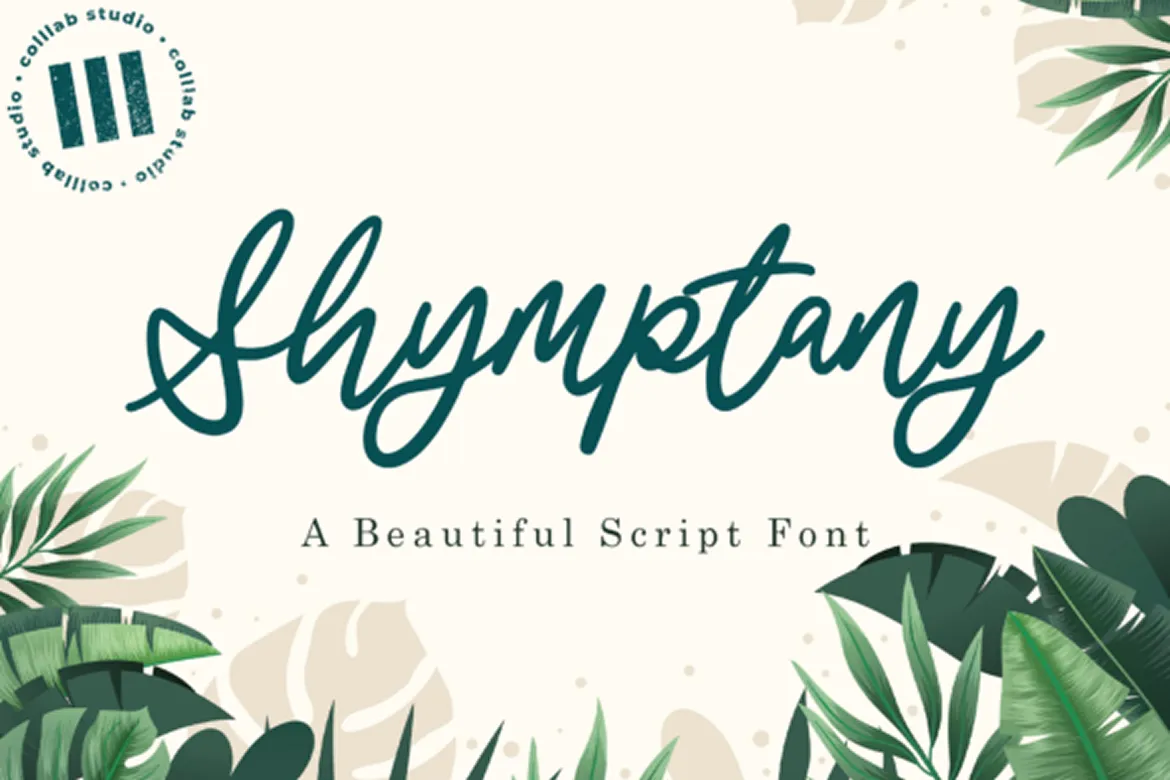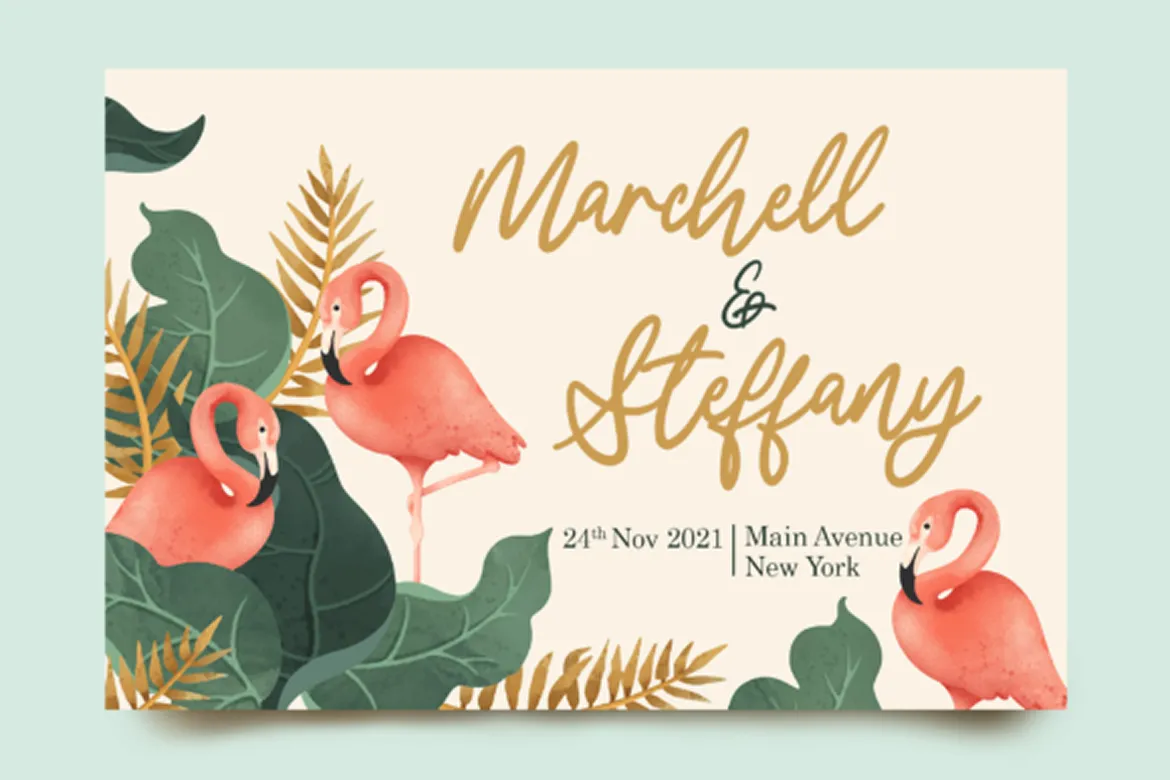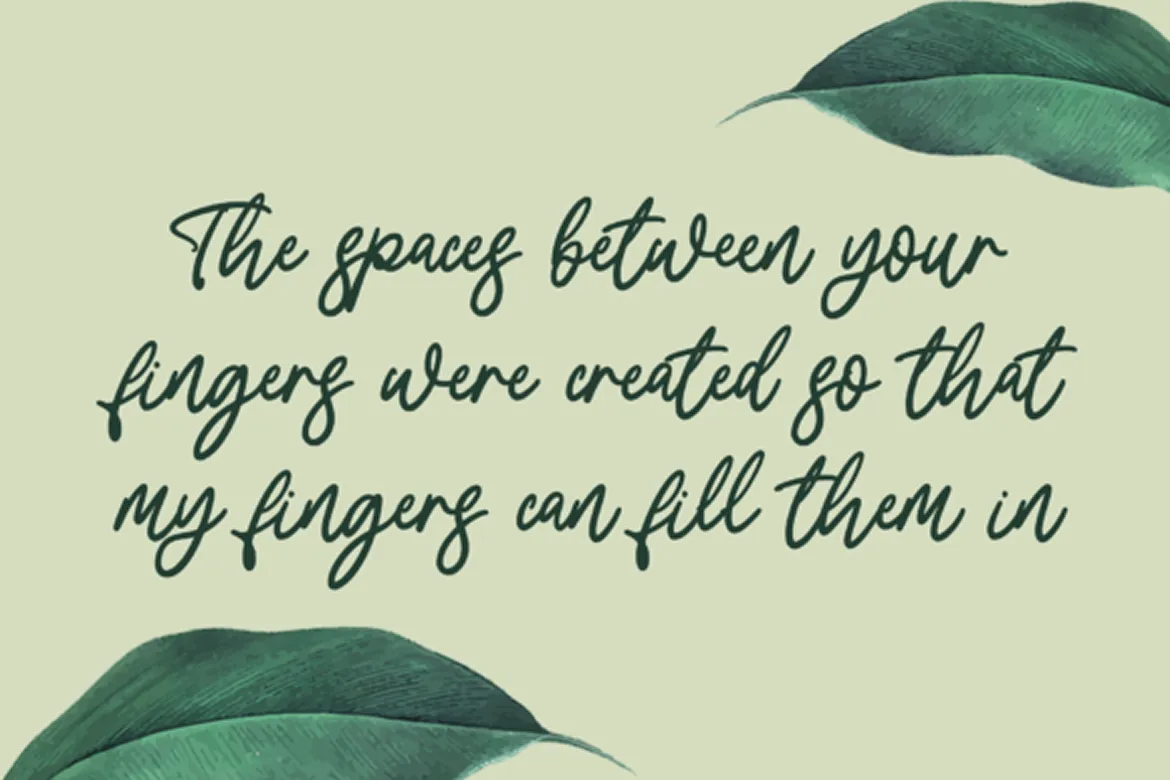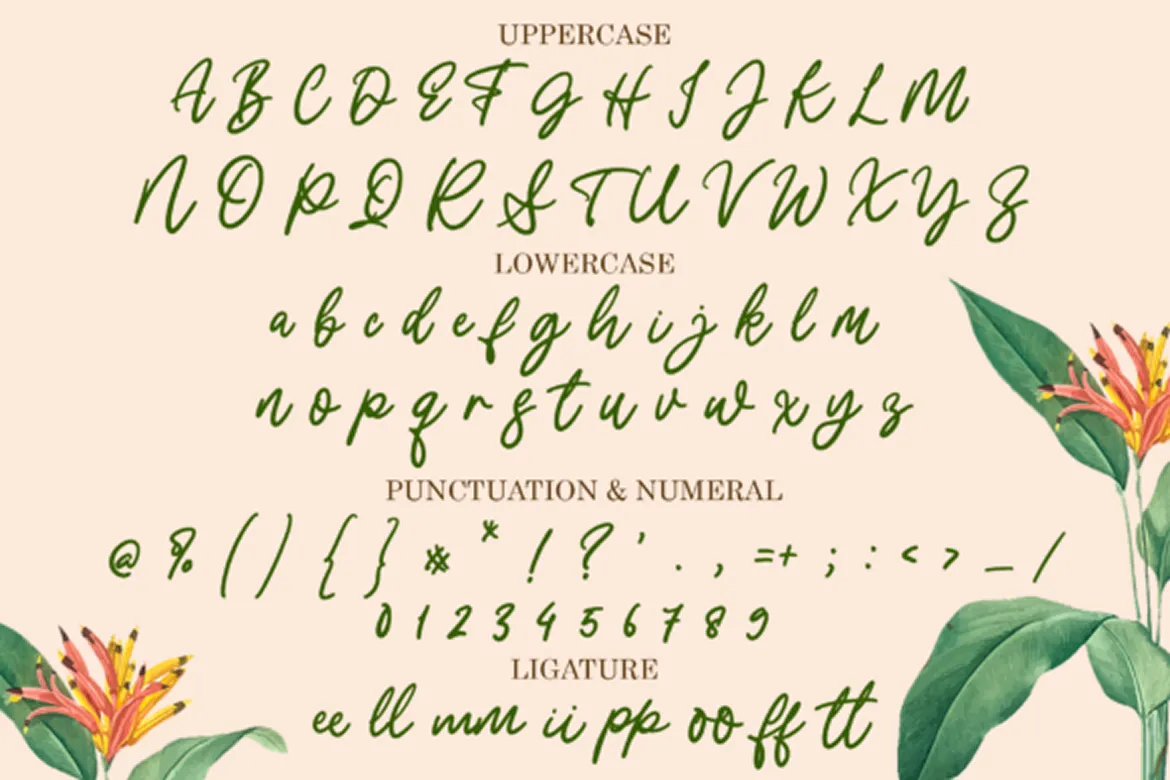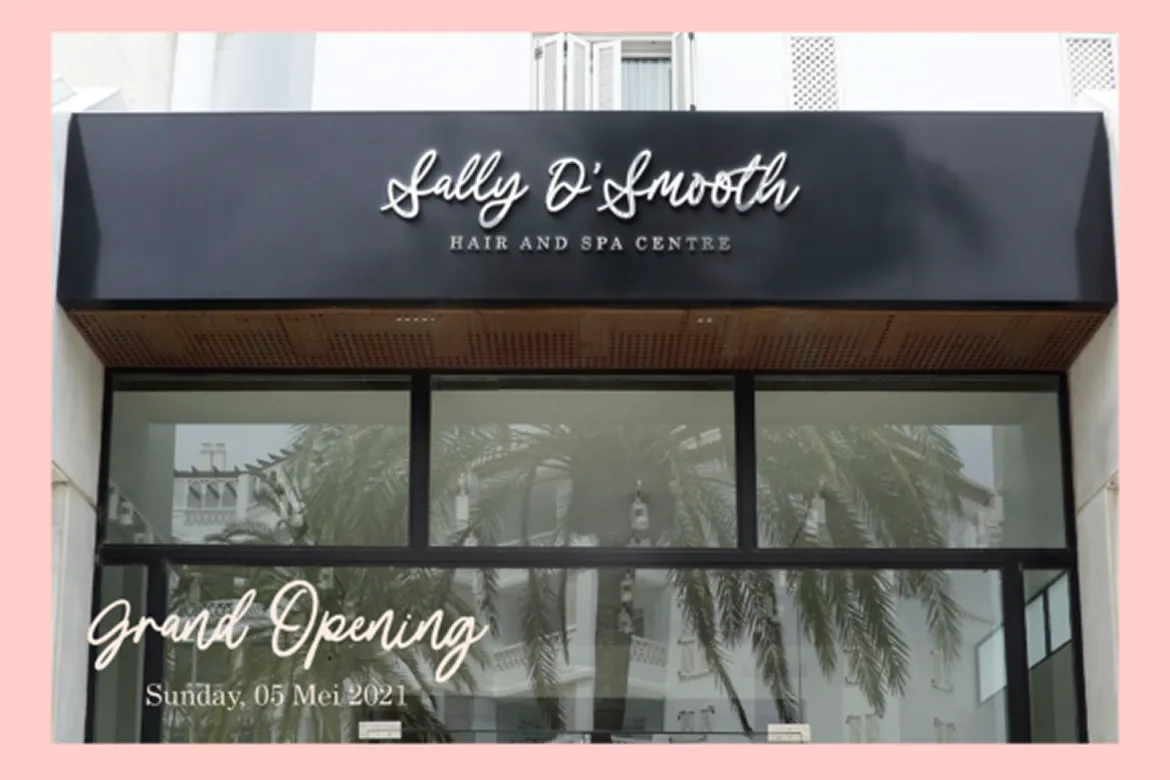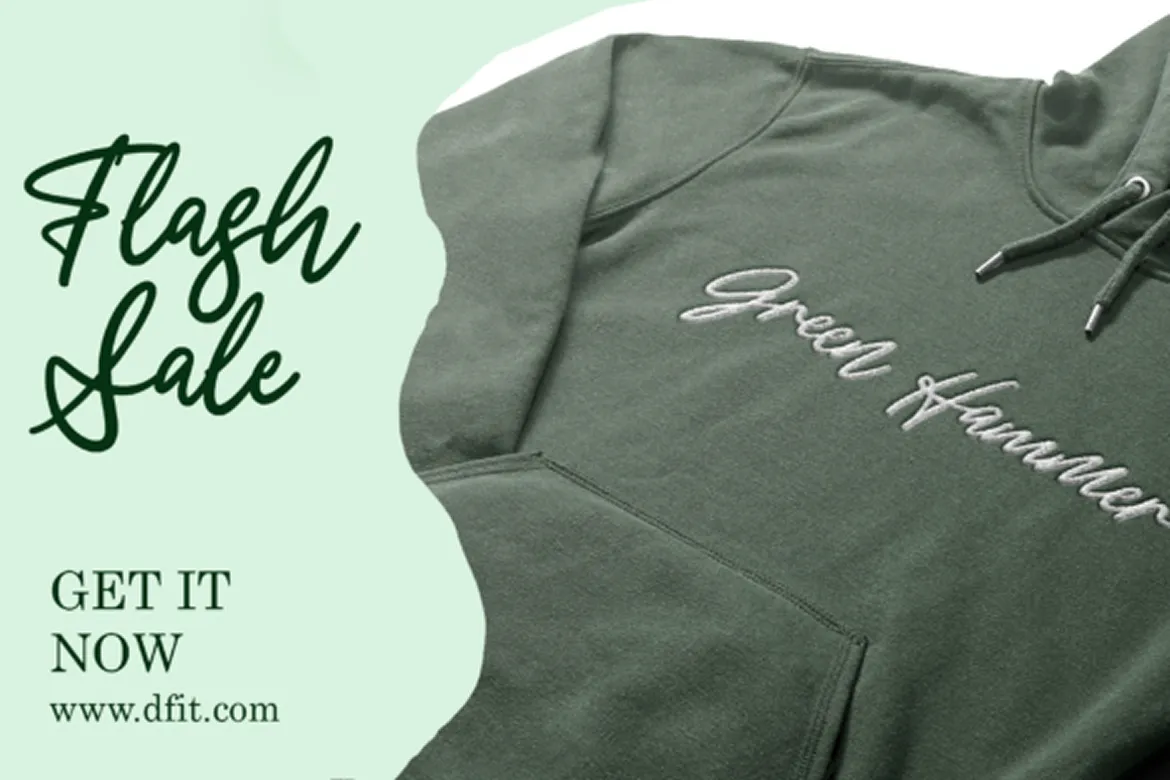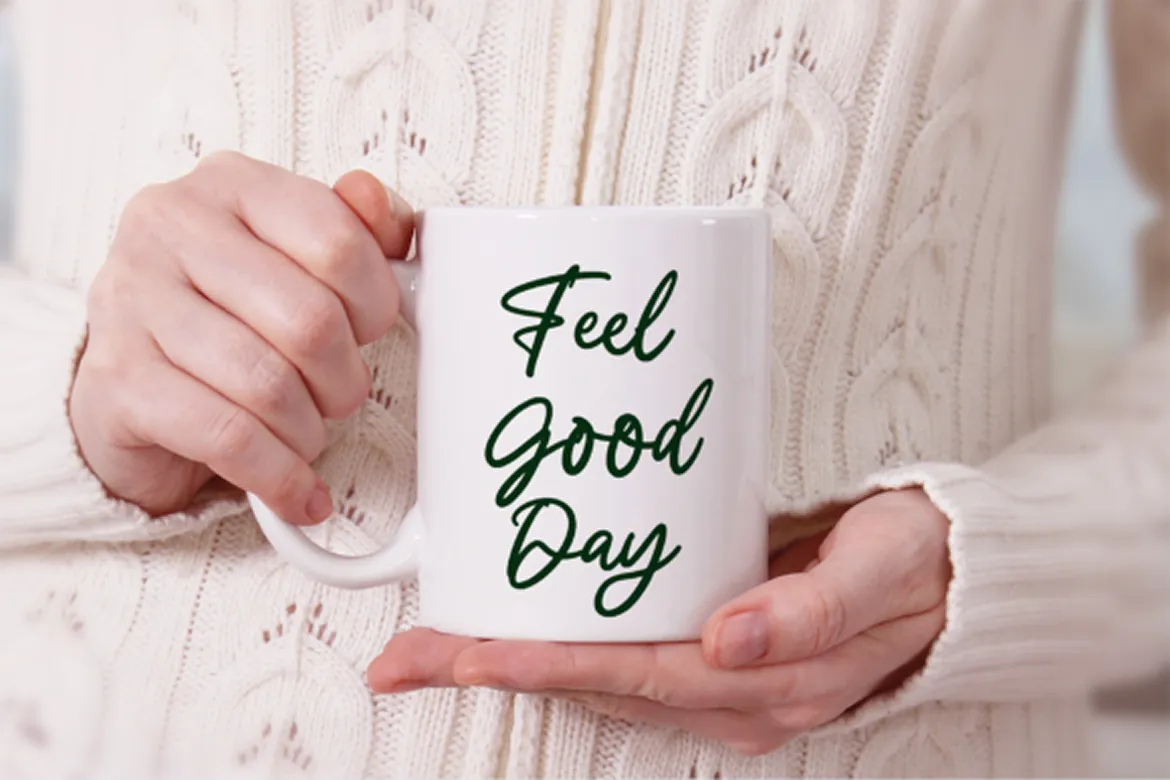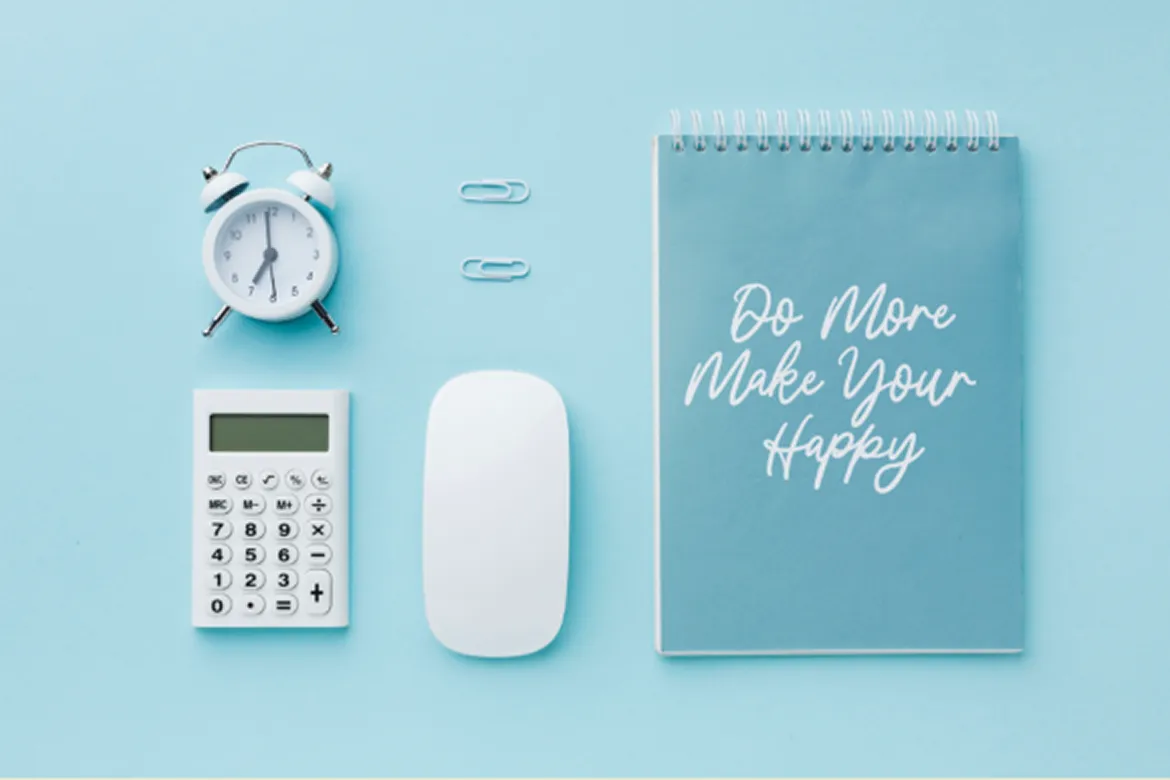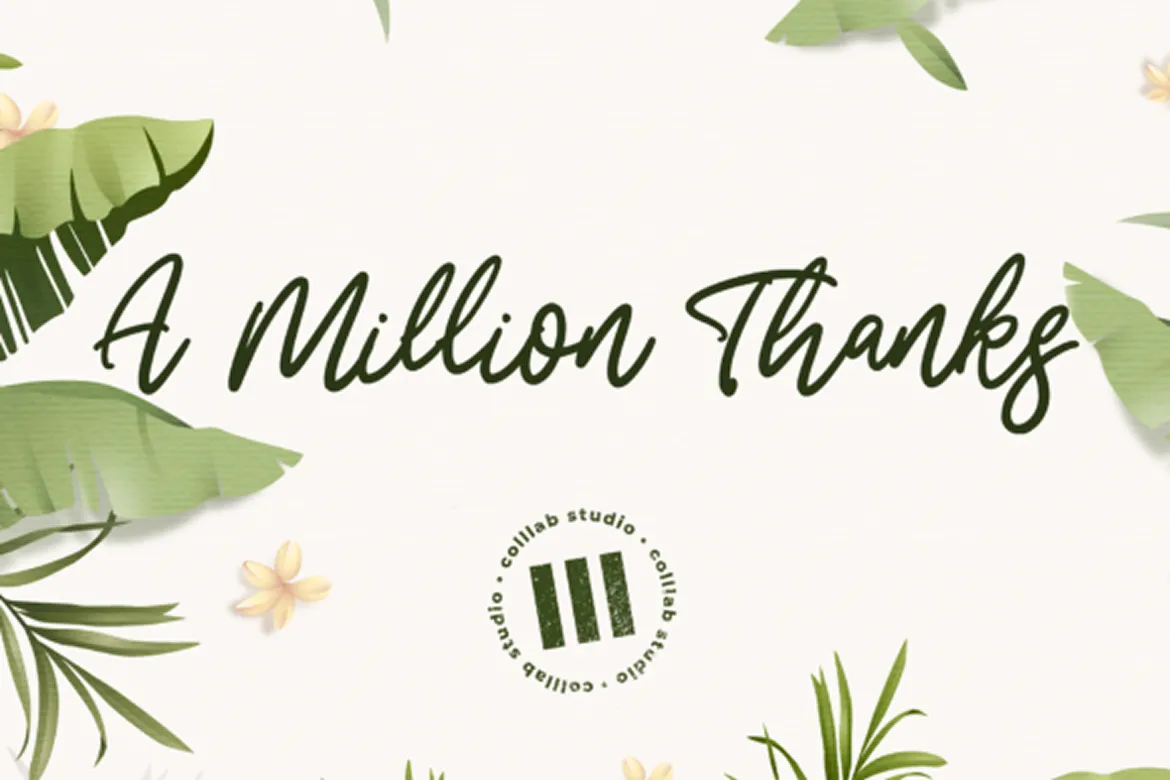
Shymptany is a modern script font designed with a handmade calligraphy touch, featuring decorative characters and a beautifully irregular baseline. With its trendy and feminine feel, this font brings effortless elegance to every project, making it a perfect choice for wedding invitations, thank you notes, quotes, greeting cards, business cards, and stylish logos.
The charm of Shymptany comes from its calligraphic roots—blending fluid strokes with a touch of natural imperfection. Inspired by the grace of handwritten letters, it offers a versatile balance between elegance and personality.
Full uppercase & lowercase characters
Numbers & punctuation
Beautiful ligatures (ee, ii, ff, and more)
Multilingual support